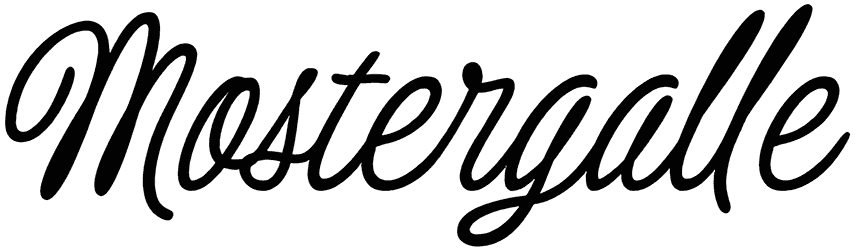
Mostergalle Font
Mostergalle gives you so many different reasons to use it that you’ll never have to question your decision. You’re not usually this lucky to find such a modern font that’s both cursive and handwritten without making things unnecessarily hard to read.
Besides that, this script font is decorative enough thanks to an italic style and curvy letter tips, making it such a fine choice for your dance party posters, apparel brand logos, gift shop website banners, and many more artworks.